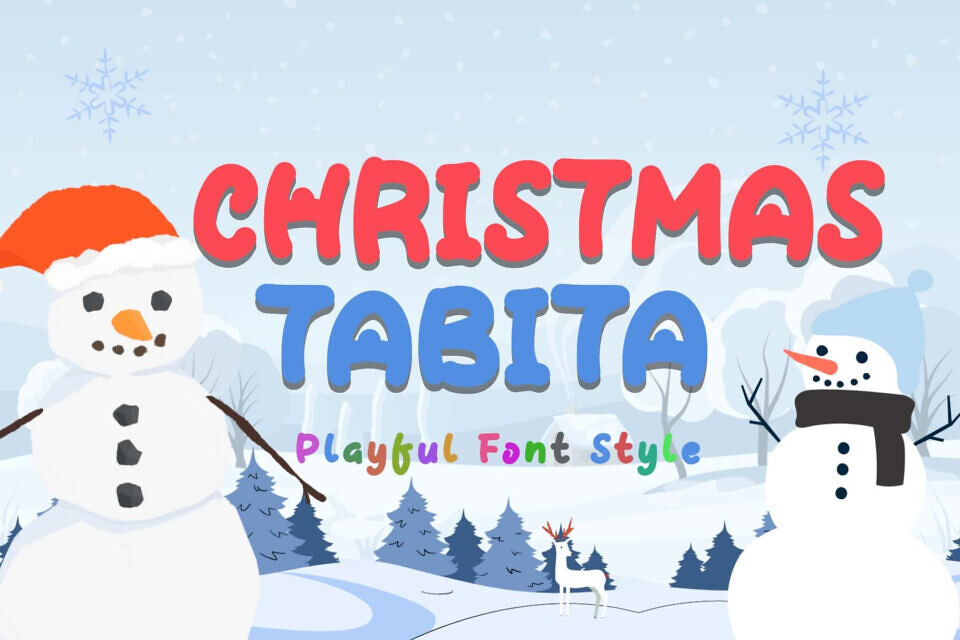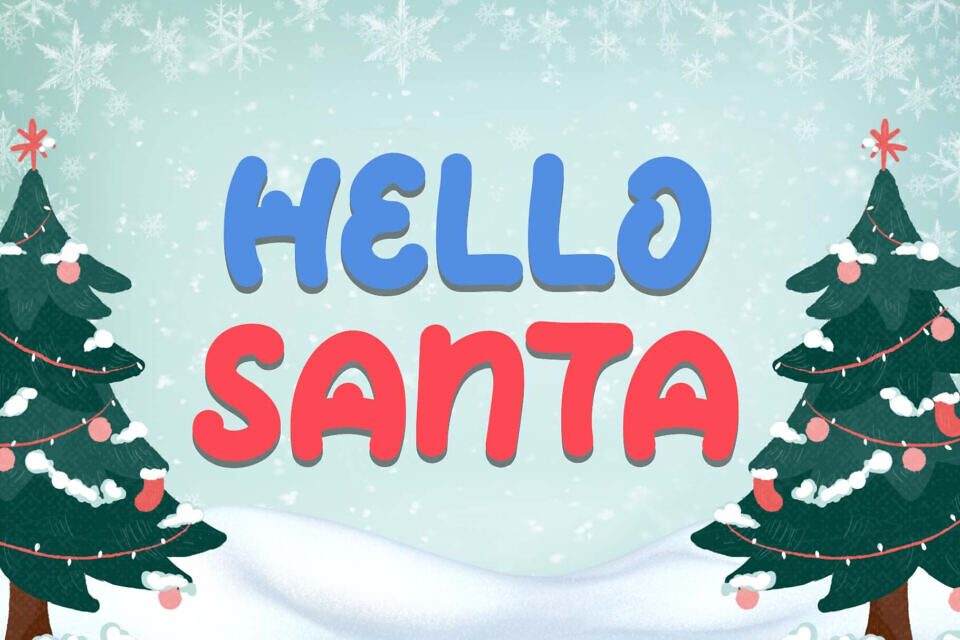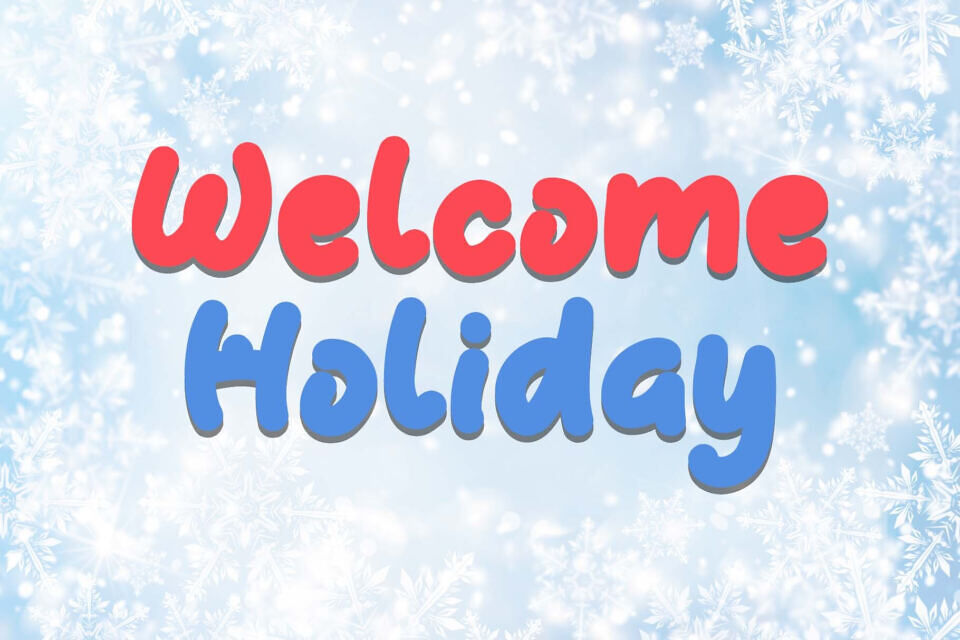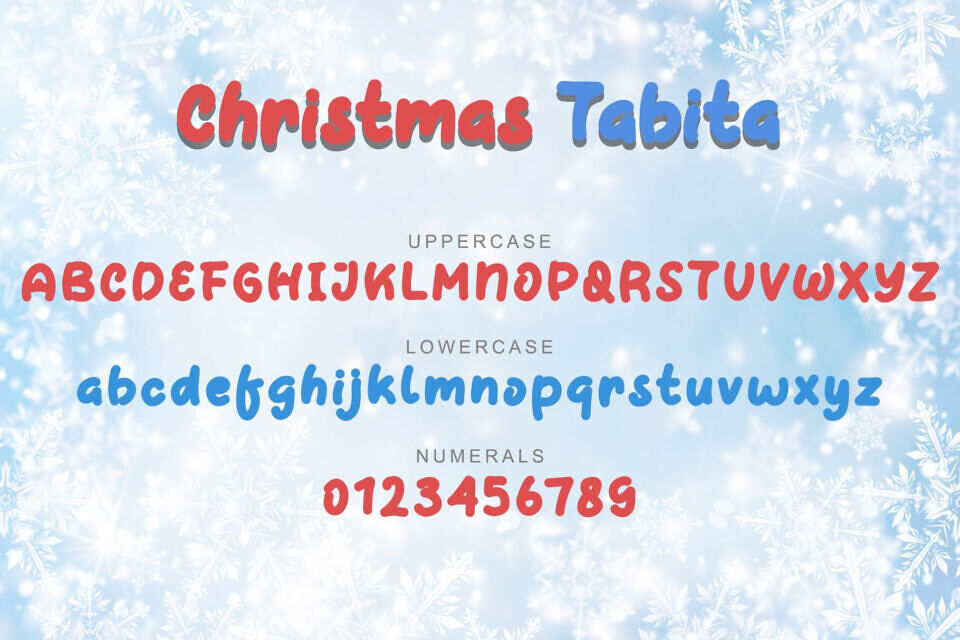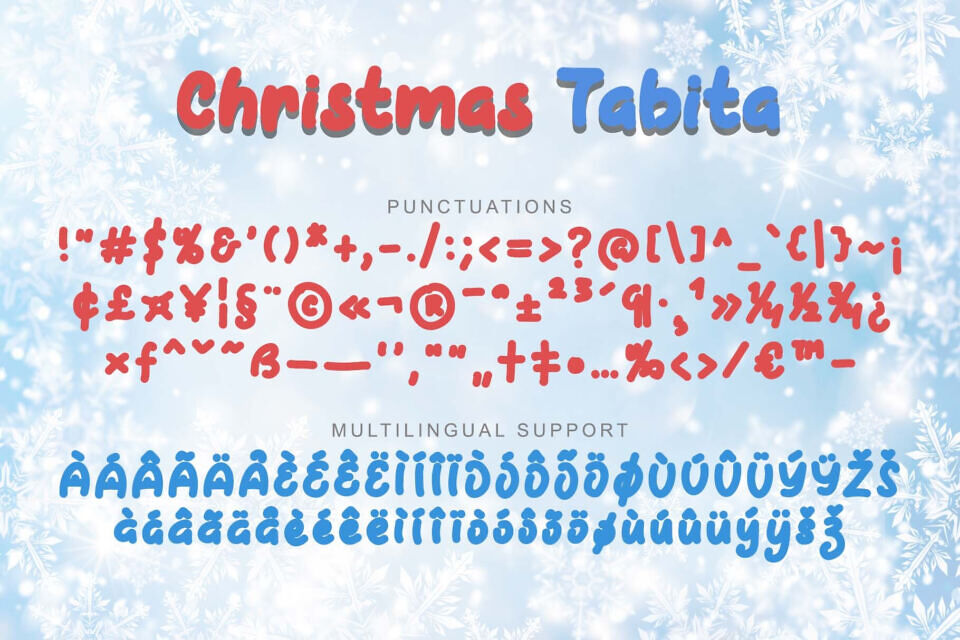
Step into a snowy wonderland with the Christmas Tabita font, a bright, playful display typeface that captures the cozy excitement of the holidays.
This font features chunky, rounded, bubble-style letters with thick, clear strokes that ensure maximum visibility. The slightly bouncy baseline and the soft, friendly shapes give the Christmas Tabita typeface an approachable, sweet charm, perfect for children’s media.